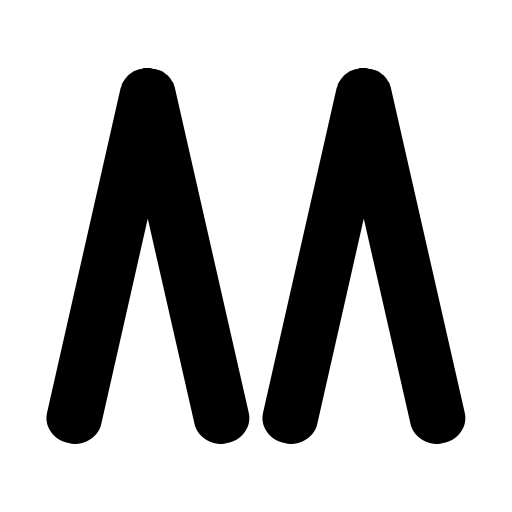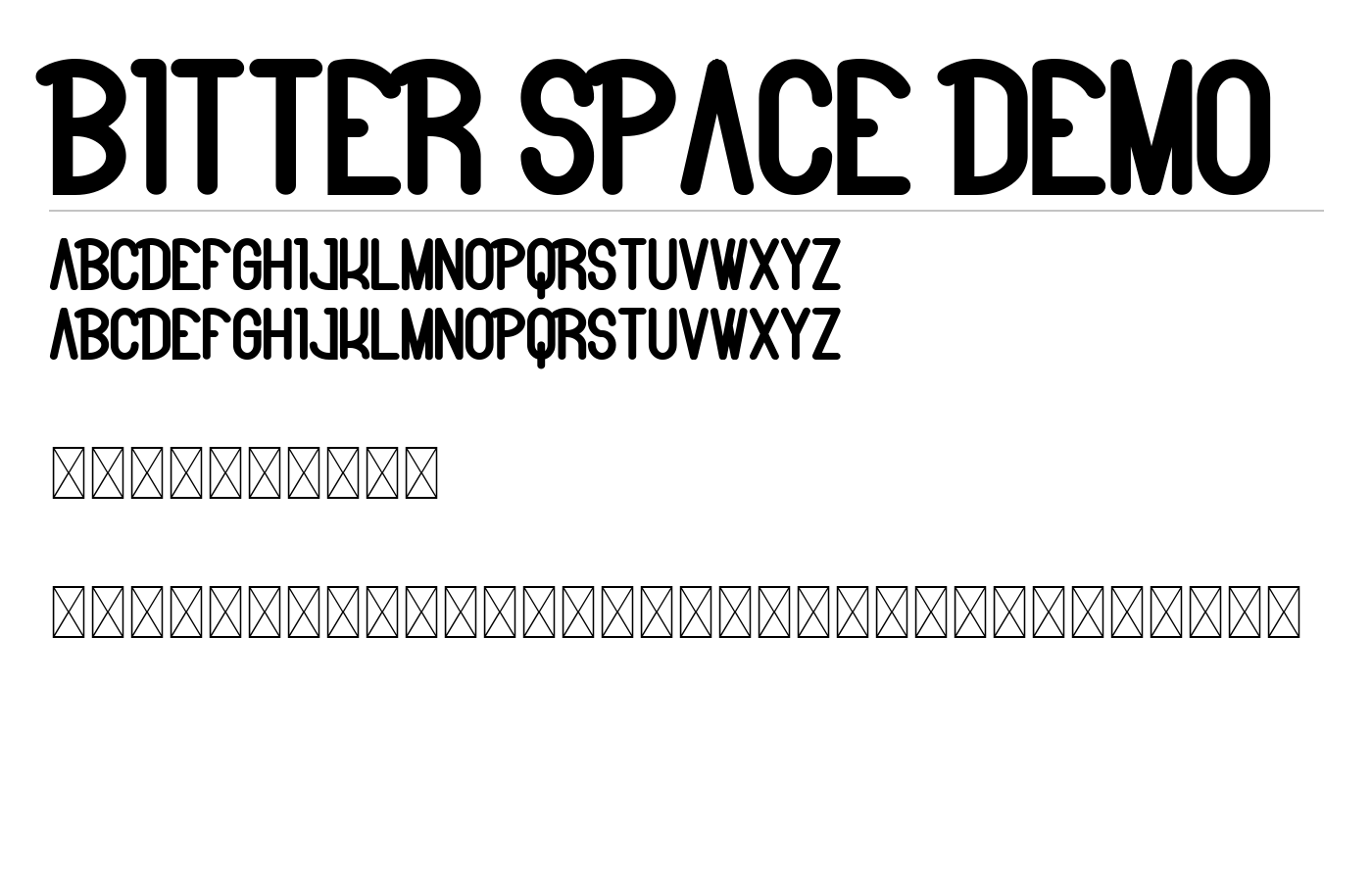
Bitter Space Demo is a quirky, condensed sans-serif font with a playful yet futuristic vibe. Its tall, narrow letterforms with rounded edges and distinctive shapes like the stylized 'A' lend a friendly and approachable character, making it ideal for creative headlines, branding, and tech-inspired designs where personality and clarity are key. This font works well in contexts that want a modern but approachable feel, standing out without losing readability.
Bitter Space Demo Font
About Bitter Space Demo Font